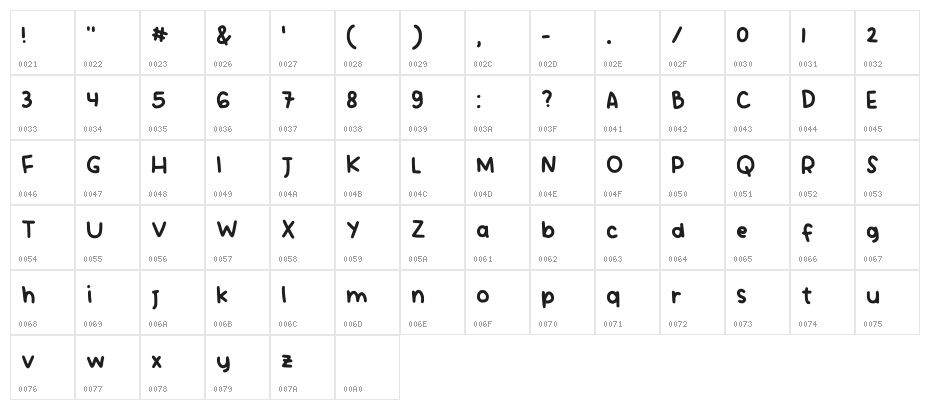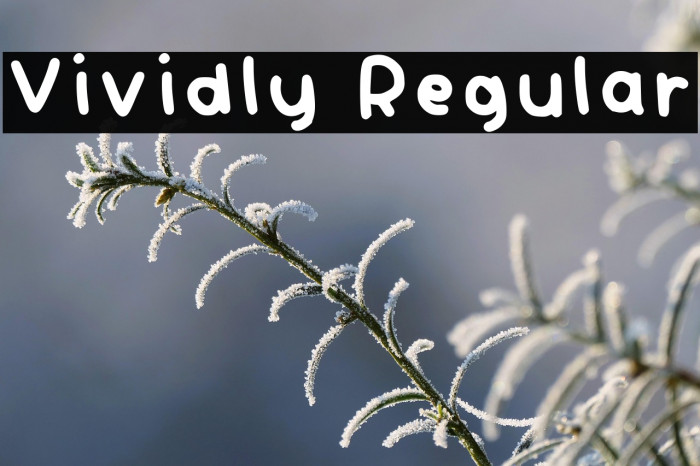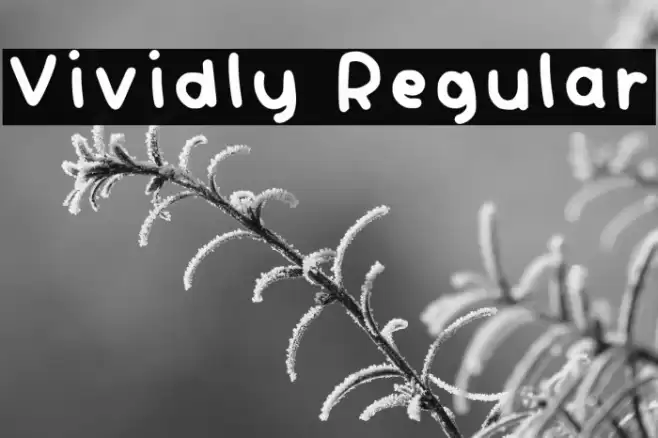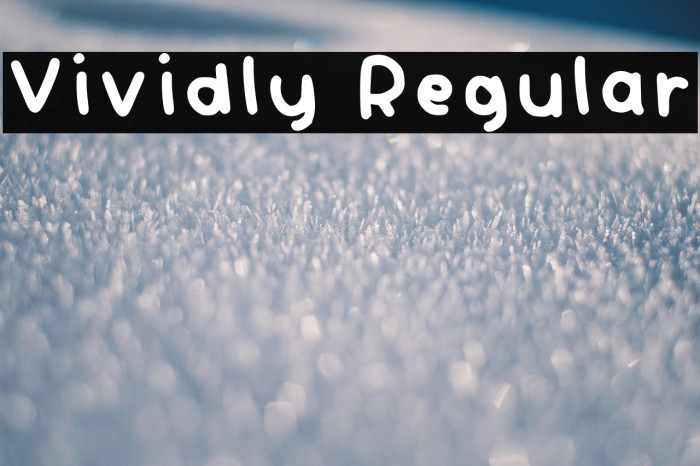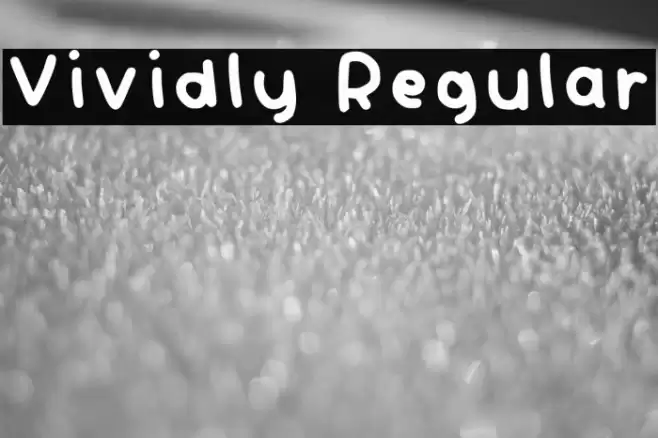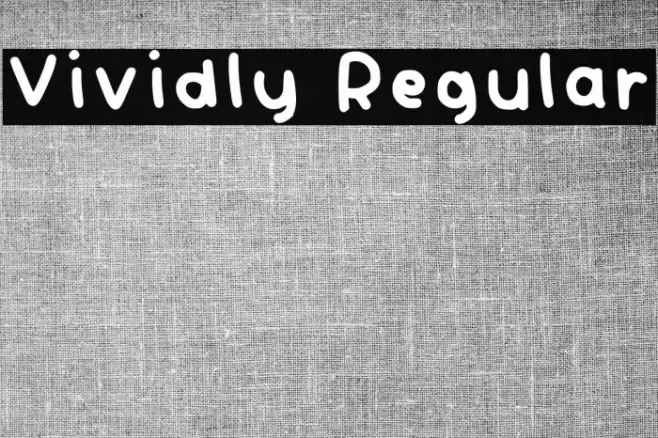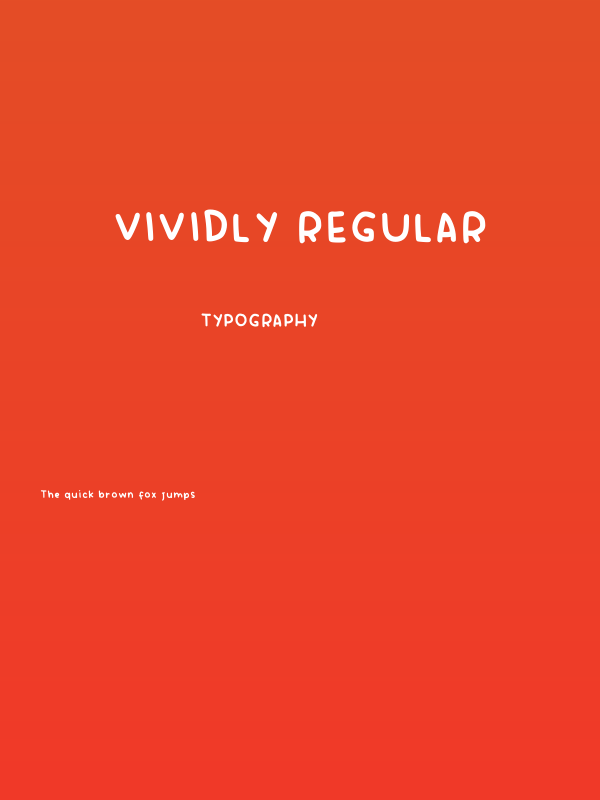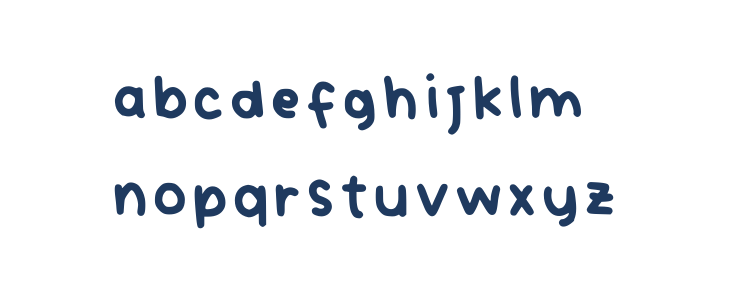
Vividly Regular Font
Vividly Regular Description
This font features a playful and informal style with rounded edges and a hand-drawn appearance. The characters are bold and slightly irregular, giving them a whimsical and approachable feel. The uppercase and lowercase letters maintain consistent proportions, while the numerals and special characters complement the overall design with their rounded and friendly shapes. This font is well-suited for projects that require a casual and fun aesthetic, making it ideal for children's books, playful branding, or creative posters.
| Proposed Projects | Children's books, playful branding, creative posters, informal invitations. |